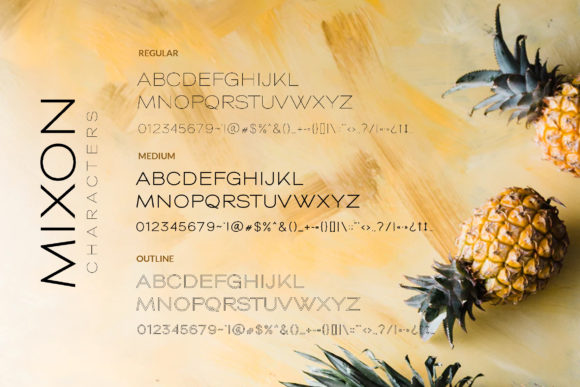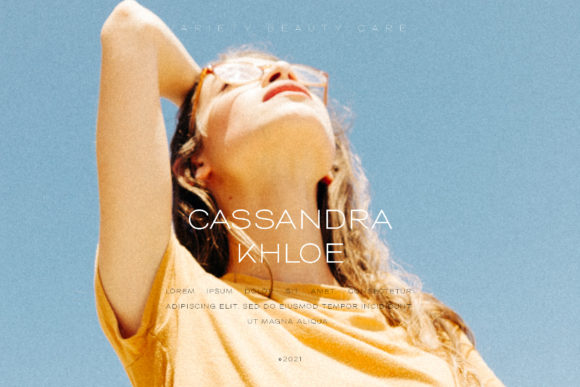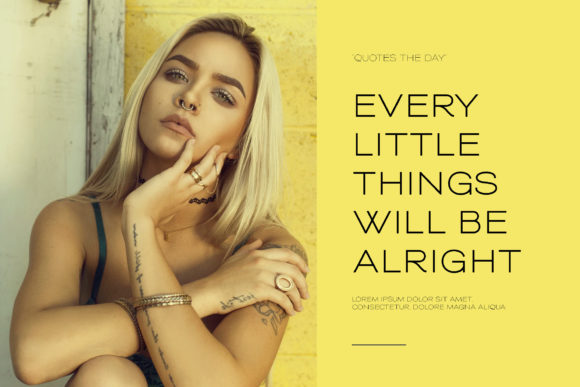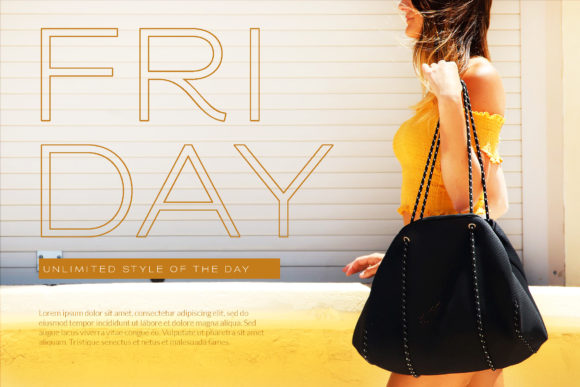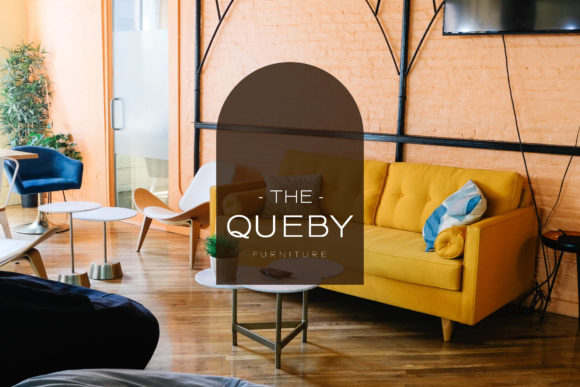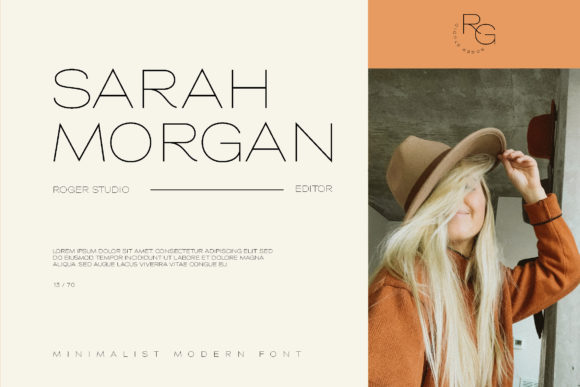
Introduction to Mixon Font
As designers, we’ve all been there – staring at a blank canvas, waiting for inspiration to strike. The cursor blinks, and our minds go blank. But what if I told you there’s a secret to unlocking your creativity? A simple yet powerful design resource that can elevate your projects and make them stand out. Enter the Mixon Font, a minimal and neat sans serif font that’s perfect for any creative endeavor.
The Mixon Font is a game-changer for designers. Its versatility and high-quality design make it an ideal choice for a wide range of projects, from logos to brochures, and even websites with a transparent background. Whether you’re looking for a free download or a premium font, Mixon Font is a valuable addition to any design arsenal.
Key Features of Mixon Font
- Features a unique, modern design with a transparent background, allowing for versatile usage in different design contexts.
- Supports a wide range of languages, making it a great choice for international design projects.
- Designed to be highly legible and readable, even at small font sizes, making it perfect for body text and headings.
Honest Review: Mixon Font
I recently stumbled upon the Mixon Font and I must say it’s been a game-changer for my design projects. This free download has been a valuable addition to my design resource library.
- ✨ High-quality design: The Mixon Font has a clean and modern aesthetic that’s perfect for creative projects.
- ✨ Versatility: This font is highly versatile and can be used for a wide range of design applications, from headings to body text.
- ✨ Transparent background: The transparent background feature makes it easy to combine with other design elements.
However, there are a few limitations I’ve encountered:
- ⚠️ Limited language support: The Mixon Font only supports a limited number of languages, which can be a drawback for designers working on international projects.
- ⚠️ Limited customization options: While the font itself is highly customizable, there are limited options for adjusting the font’s behavior.
Overall, I’m impressed with the Mixon Font and would highly recommend it to designers looking for a high-quality, free download for their creative projects.
Mixon Font
Tips for Getting the Most Out of Mixon Font
To get the most out of the Mixon Font, be sure to use it with a transparent background to create a clean and modern look. You can also experiment with different font sizes and colors to add visual interest to your designs.
The Mixon Font is commonly used in a wide range of creative projects, including logos, graphics, presentations, and documents. It’s a great choice for anyone looking for a high-quality, free design resource.